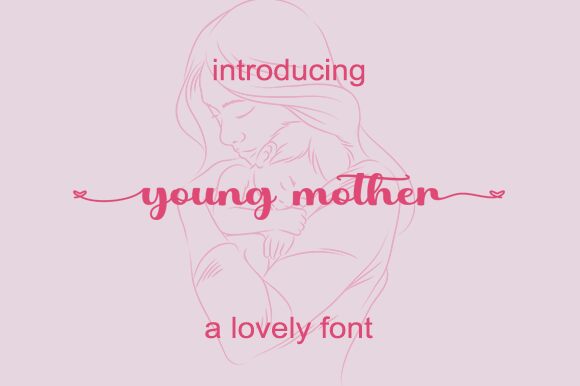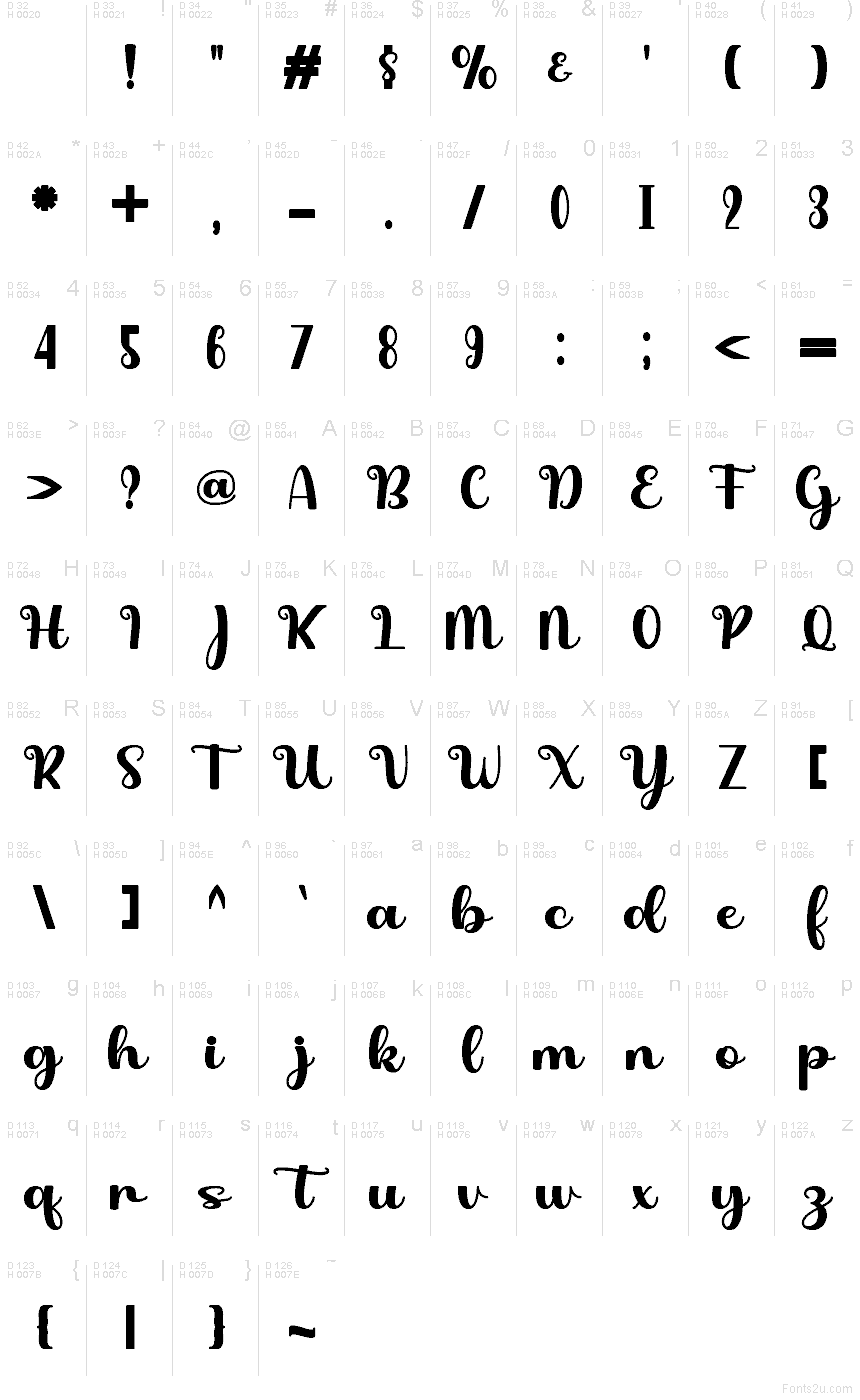
Young Mother
Young Mother font by Cavalera Creative is a free brush script typeface with a warm, hand-lettered ease. Its inky curves feel like they’ve been painted in one relaxed sweep, with rounded shapes and soft loops that give every word a gentle, nurturing tone. The letters stay bold and legible, so even with all that charm and curl, your message reads clearly at a glance.
Using Young Mother, this free font shines on baby shower invitations, nursery prints, mom-focused branding, lifestyle blogs, packaging for handmade products, and sweet social media graphics. The smooth rhythm between letters creates a cozy, flowing line that feels personal without looking messy or chaotic. Pair it with a clean sans serif for small supporting text and let Young Mother handle the names, headlines, and key phrases at larger sizes.